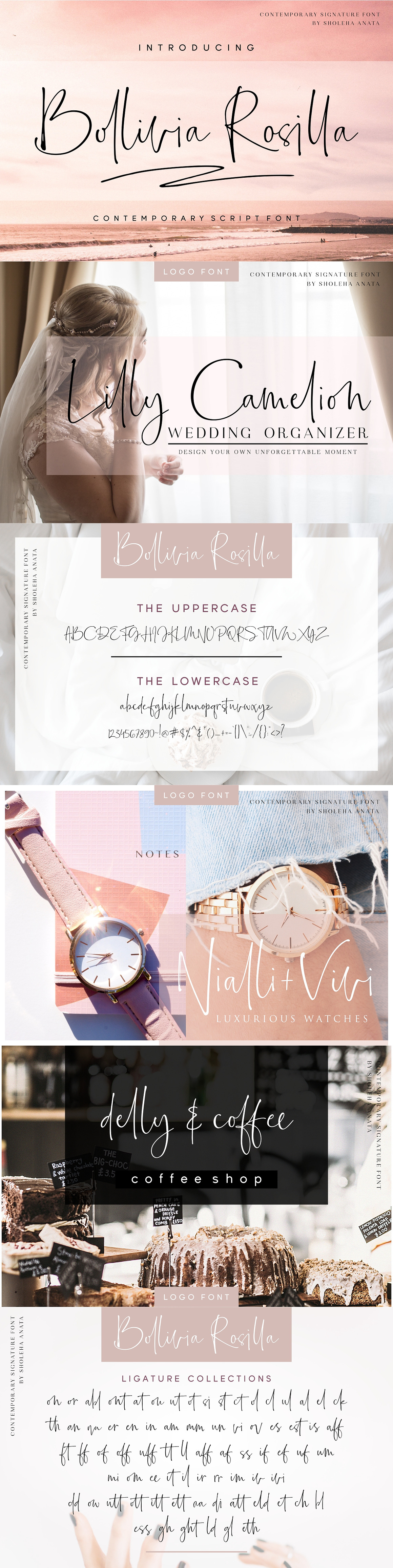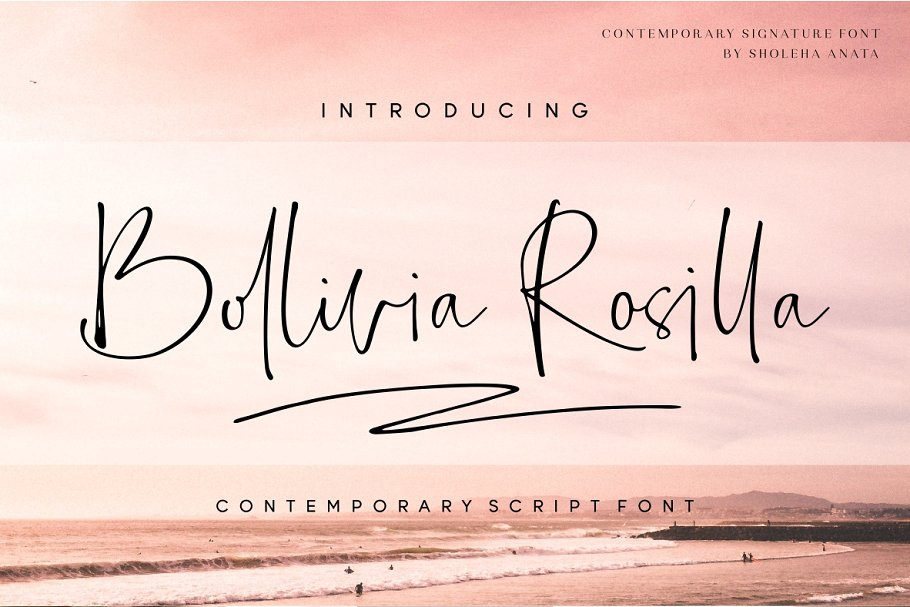
Bollivia Rosilla Font
Bollivia Rosilla Font is perfect for Latin American cultural center branding, South American restaurant signage, heritage festival materials, traditional craft marketplace logos, authentic cultural celebration graphics, Latin dance studio communications, ethnic food packaging, international cultural exchange programs, traditional textile company branding, and multicultural community organization materials. This vibrant typeface excels in applications where Latin American heritage, cultural authenticity, and colorful traditional celebration are fundamental brand characteristics.
What makes Bollivia Rosilla Font exciting is its joyful embodiment of Latin American cultural richness through expressive letterforms that capture the warmth, passion, and artistic heritage of South American traditions and community celebrations. The font features dynamic character construction with festive details and celebratory proportions that immediately convey cultural pride, community spirit, and the vibrant energy found in traditional Latin American festivals and family gatherings. Its authentic personality makes it perfect for organizations that celebrate cultural diversity while honoring the rich artistic traditions and community values of Latin American heritage.
The Bollivia Rosilla Font family typically includes Regular and Bold weights, often accompanied by decorative alternates with enhanced cultural characteristics and festive ligatures that reflect the rhythmic energy of Latin American music and dance traditions. Many versions include cultural symbols, traditional decorative elements, and ornamental flourishes inspired by South American folk art and textile patterns that enhance the authentic cultural aesthetic. Some collections include colorful variations and celebratory effects that amplify the festive atmosphere for maximum cultural impact.
Whether you're developing brand identities for Latin American cultural organizations, creating materials for heritage celebrations, or designing content that honors South American traditions and promotes cross-cultural understanding, Bollivia Rosilla Font Free Download provides the authentic cultural character that resonates with Latino communities and audiences who appreciate cultural diversity and traditional artistic expression. Its warm presence makes it ideal for organizations focused on preserving cultural heritage while building bridges between different communities through shared celebration and mutual respect. The font's ability to convey both cultural pride and inclusive welcome makes it particularly valuable for cultural centers, community organizations, and businesses seeking to serve Latino communities while promoting understanding and appreciation of the rich artistic heritage and strong family values that define Latin American culture.